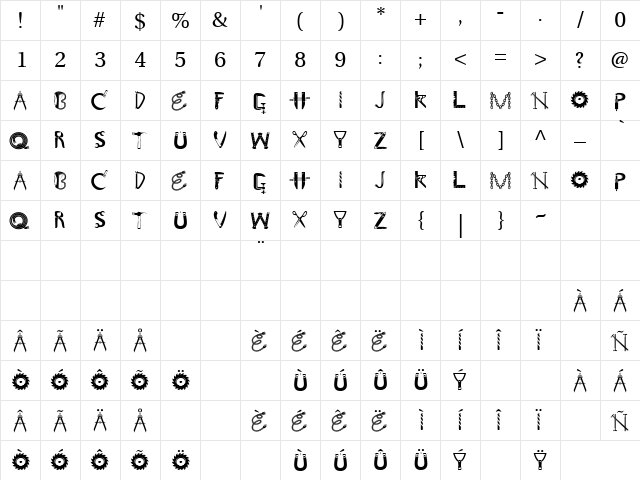
GE Tooltime Regular
Design Context for GE Tooltime Typeface
GE Tooltime is a composed and adaptable typeface that performs quietly and consistently across a wide range of design contexts.